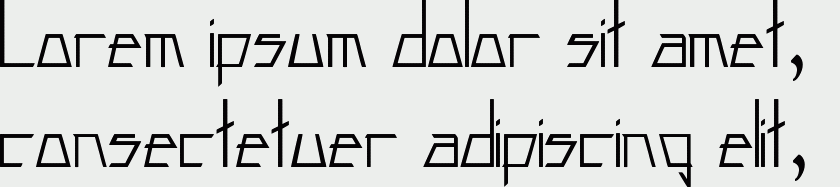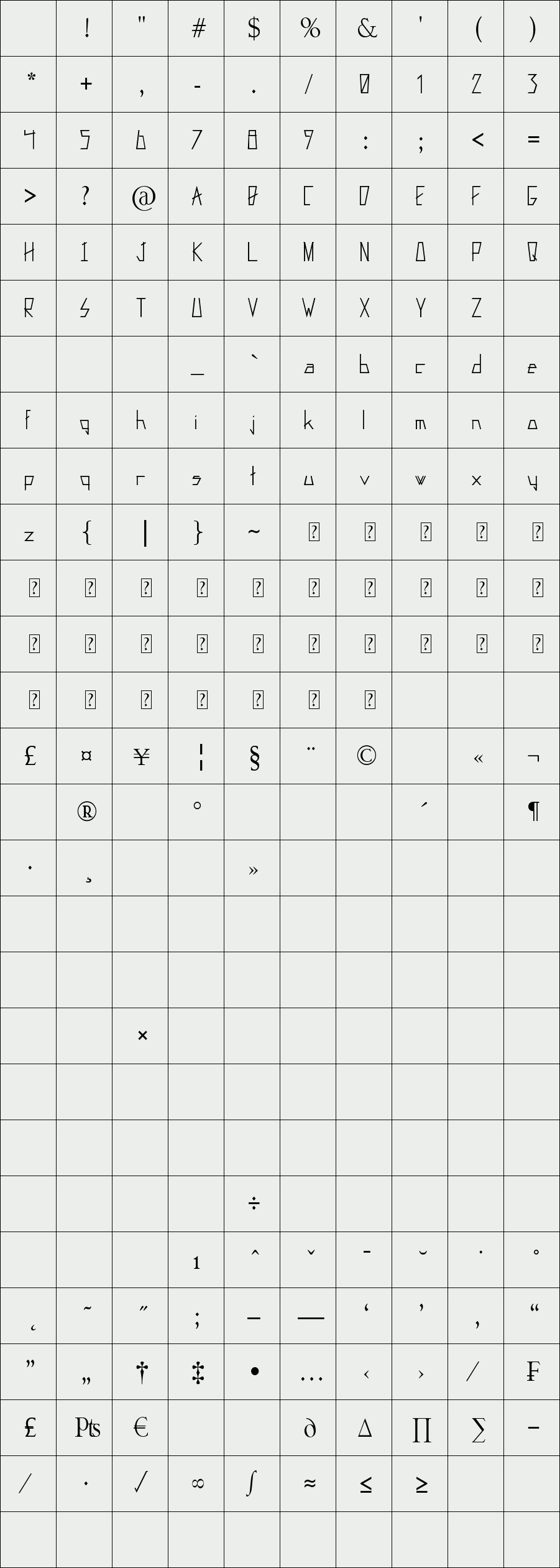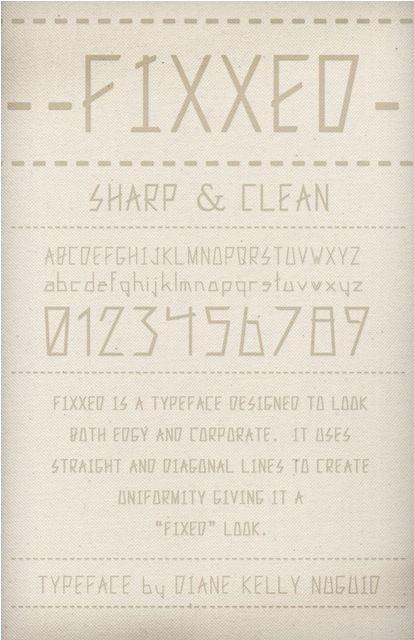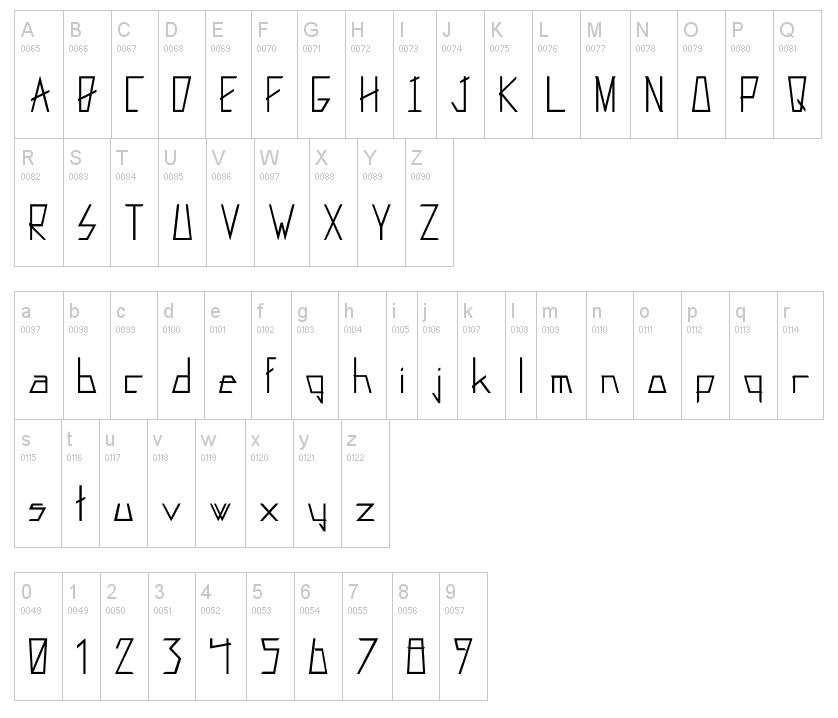
Fixxed
Fixxed is a typeface designed to look both edgy and corporate. It uses straight and diagonal lines to create uniformity giving it a "fixed" look.
Designer: Diane Kelly Tolentino Nuguid